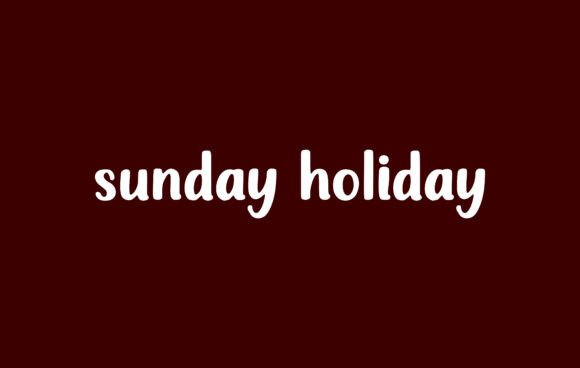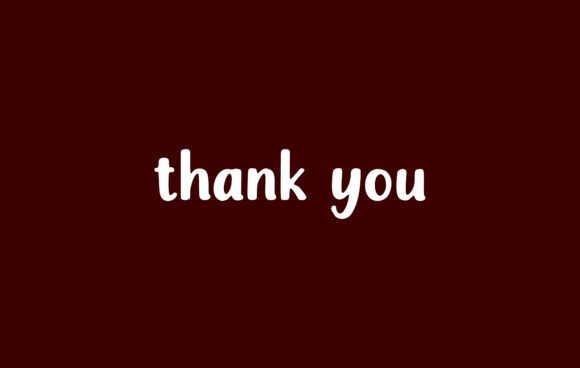
Addilyn Font: The Perfect Handwritten Font for Your Creative Projects
Are you looking for a font that can add a touch of romance and elegance to your designs? Look no further than Addilyn Font! This authentic handwritten font is expertly designed to be a true favorite among designers and crafters, and has the potential to take your creative ideas to the highest level.
What Makes Addilyn Font So Special?
Addilyn Font is a unique and beautiful handwritten font that is perfect for a wide range of design projects. Its romantic touch and elegant feel make it ideal for creating stunning magazine headlines, social media graphics, branding materials, wedding invitations, cards, and more.
One of the standout features of Addilyn Font is its legibility. Unlike some handwritten fonts that can be difficult to read, Addilyn Font is clear and easy to understand, making it perfect for use as both title and body text.
Uses for Addilyn Font
Addilyn Font is a versatile font that can be used in a variety of different design projects. Here are just a few ideas to get you started:
- Magazine Headlines: Addilyn Font is perfect for creating eye-catching magazine headlines that will grab the attention of your readers.
- Social Media Graphics: Use Addilyn Font to create stunning social media graphics that will help you stand out from the crowd.
- Branding: Addilyn Font is a great choice for branding materials, such as logos, business cards, and letterheads.
- Wedding Invitations: Addilyn Font is a popular choice for wedding invitations, and is perfect for creating beautiful and elegant wedding stationery.
- Cards: Use Addilyn Font to create beautiful and personalized cards for any occasion.
Why Designers and Crafters Love Addilyn Font
Designers and crafters love Addilyn Font for a variety of reasons. Here are just a few:
- Elegant and Romantic: Addilyn Font has a beautiful, elegant feel that is perfect for creating romantic and sophisticated designs.
- Legible: Addilyn Font is clear and easy to read, making it perfect for use as both title and body text.
- Versatile: Addilyn Font can be used in a wide range of design projects, from magazine headlines to wedding invitations.
Addilyn Font is a beautiful and elegant handwritten font that is perfect for designers and crafters. Its romantic touch and legible design make it ideal for a wide range of design projects, from magazine headlines to wedding invitations. With its ease of use and versatility, Addilyn Font is a great choice for anyone looking to add a touch of elegance and sophistication to their designs.